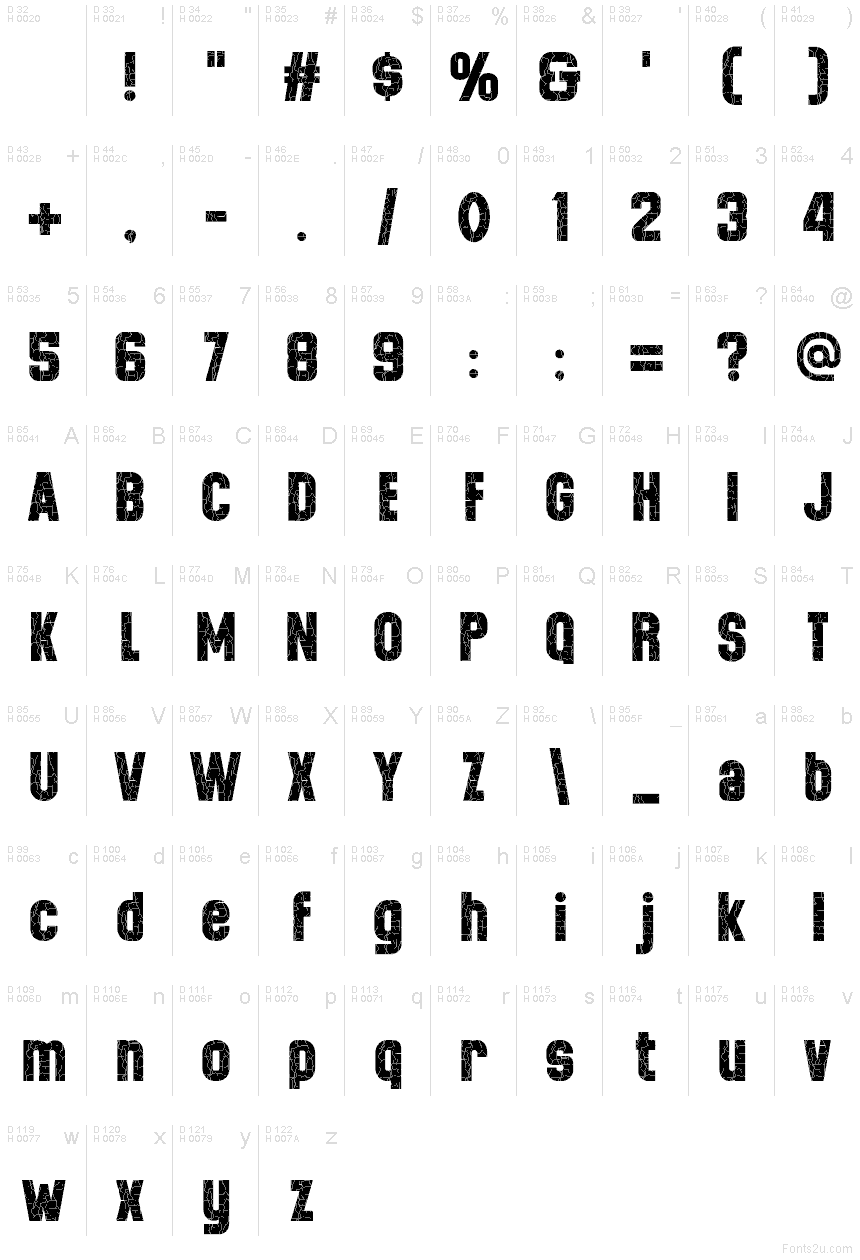
Briket
Briket font by Khurasan is a bold display font with an eroded, distressed appearance. The letters are condensed and have cracked textures across their surface, giving them a contemporary vibe with rugged aesthetic and an impactful visual.